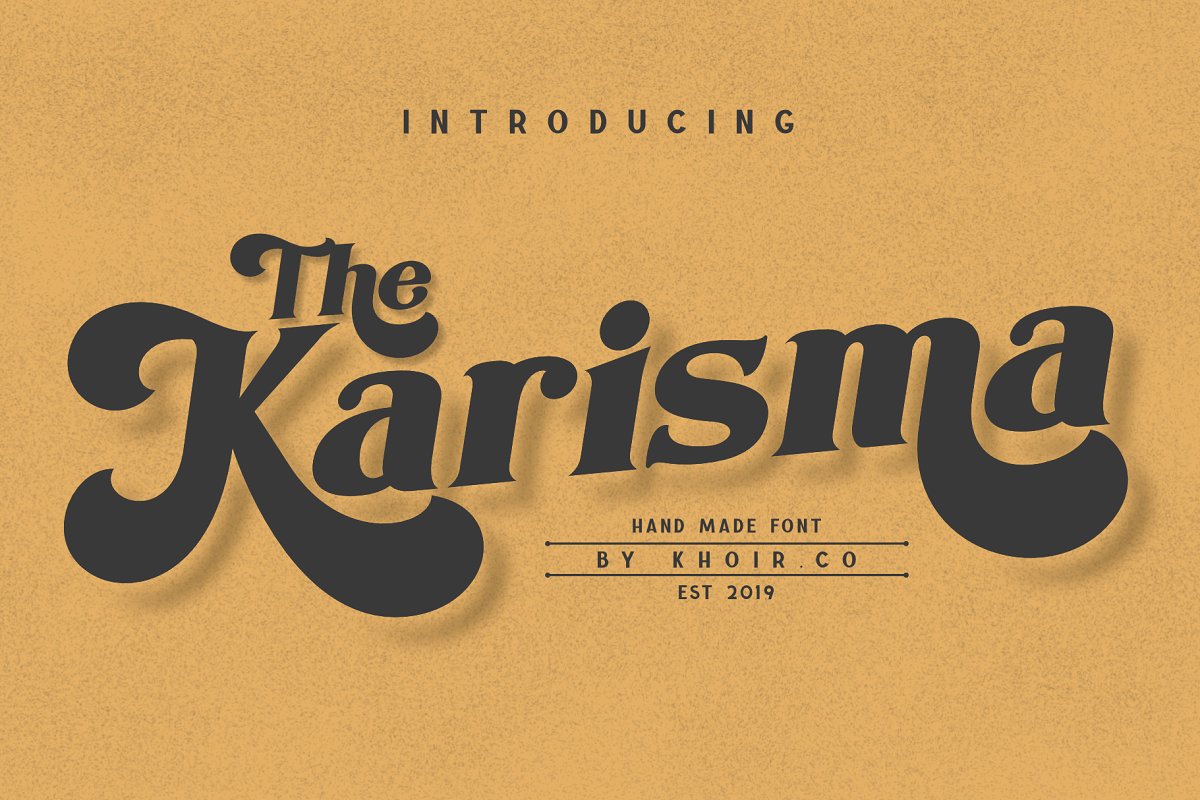
The Karisma Font
The Karisma Font is perfect for magnetic leadership branding, charismatic speaker promotions, influential personality campaigns, captivating entertainment marketing, compelling personal brands, magnetic attraction services, irresistible lifestyle products, and mesmerizing advertising projects. This captivating typeface works magnificently in both digital applications and print media where personal magnetism and charismatic appeal are fundamental design requirements.
What makes The Karisma Font so exciting is its magnetic interpretation of personal charisma and compelling presence through captivating letterforms that seem infused with the same irresistible charm and magnetic appeal that defines truly charismatic personalities and influential leaders. The font features compelling characters with magnetic proportions, captivating curves, and irresistible details that communicate personal magnetism, influential presence, and the compelling quality that draws people in and creates lasting impressions. Its charismatic personality and influential heritage make it ideal for personal brands seeking to establish magnetic authority while appealing to audiences who are naturally drawn to charismatic leadership and compelling personalities.
The Karisma Font family includes multiple weight variations with different magnetic intensities, along with captivating alternates and charismatic ornamental elements. Each style maintains the typeface's compelling character while offering comprehensive character sets including magnetic numerals, charismatic punctuation marks, and special symbols designed to enhance influential communications and captivating branding efforts across various compelling contexts.
This remarkable typeface represents the perfect fusion of personal magnetism and contemporary typography for leadership and entertainment industries. Whether you're developing charismatic speaker identities, creating influential personal brand materials, or designing captivating entertainment campaigns, The Karisma Font Free Download provides the magnetic authenticity and versatility needed to attract and influence audiences. The font's charismatic appeal makes it particularly effective for motivational speakers, entertainment personalities, influential coaches, and businesses built around compelling personal brands and magnetic leadership qualities.
The meticulously crafted magnetic details and optimized charismatic performance in The Karisma Font ensure both compelling authenticity and clear communication across all influential applications. Its captivating presence makes it perfect for charismatic branding, magnetic marketing materials, and compelling communications where its full influential character can create lasting attraction and establish immediate association with personal magnetism, compelling presence, and the irresistible charisma that defines truly influential personalities and leaders.